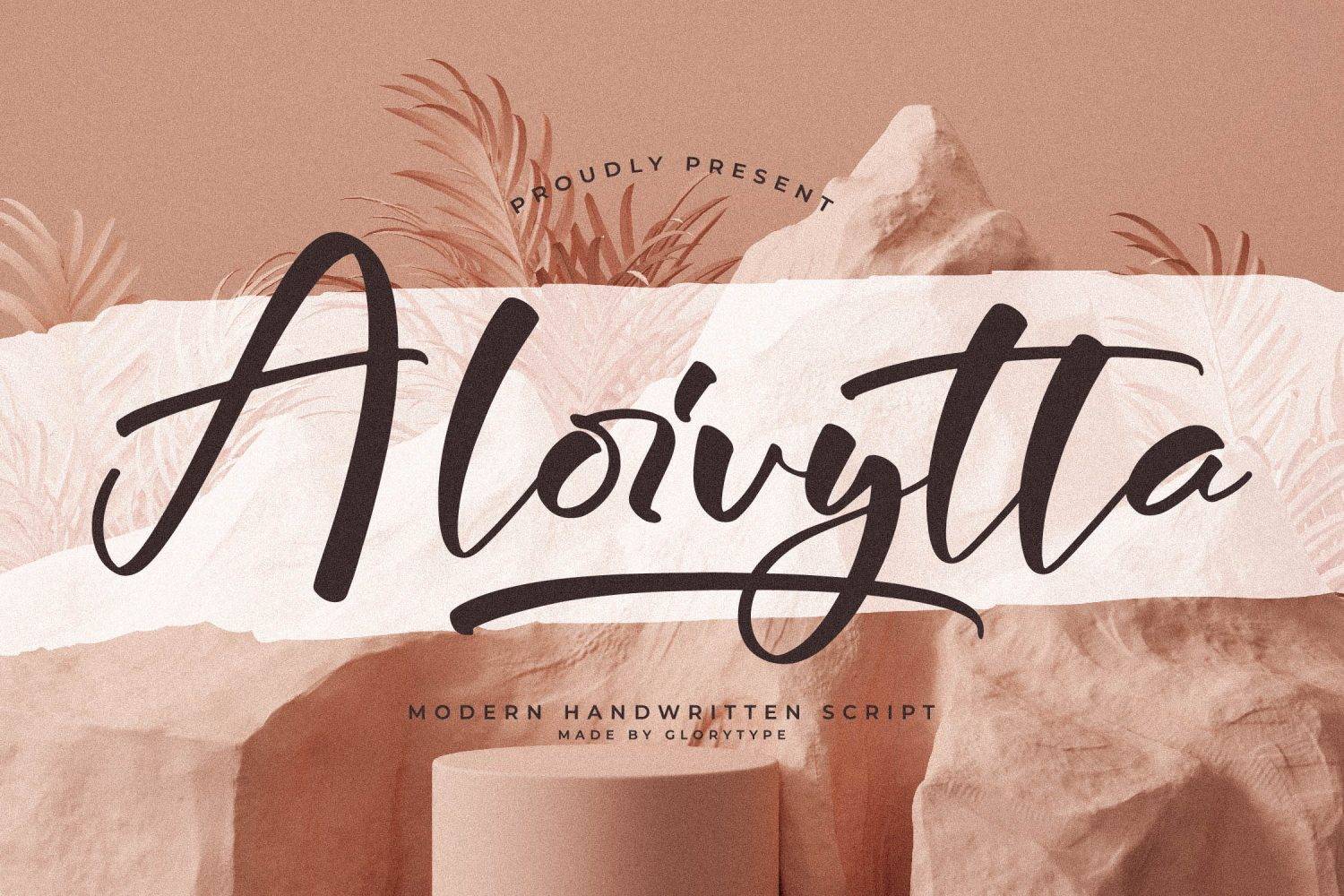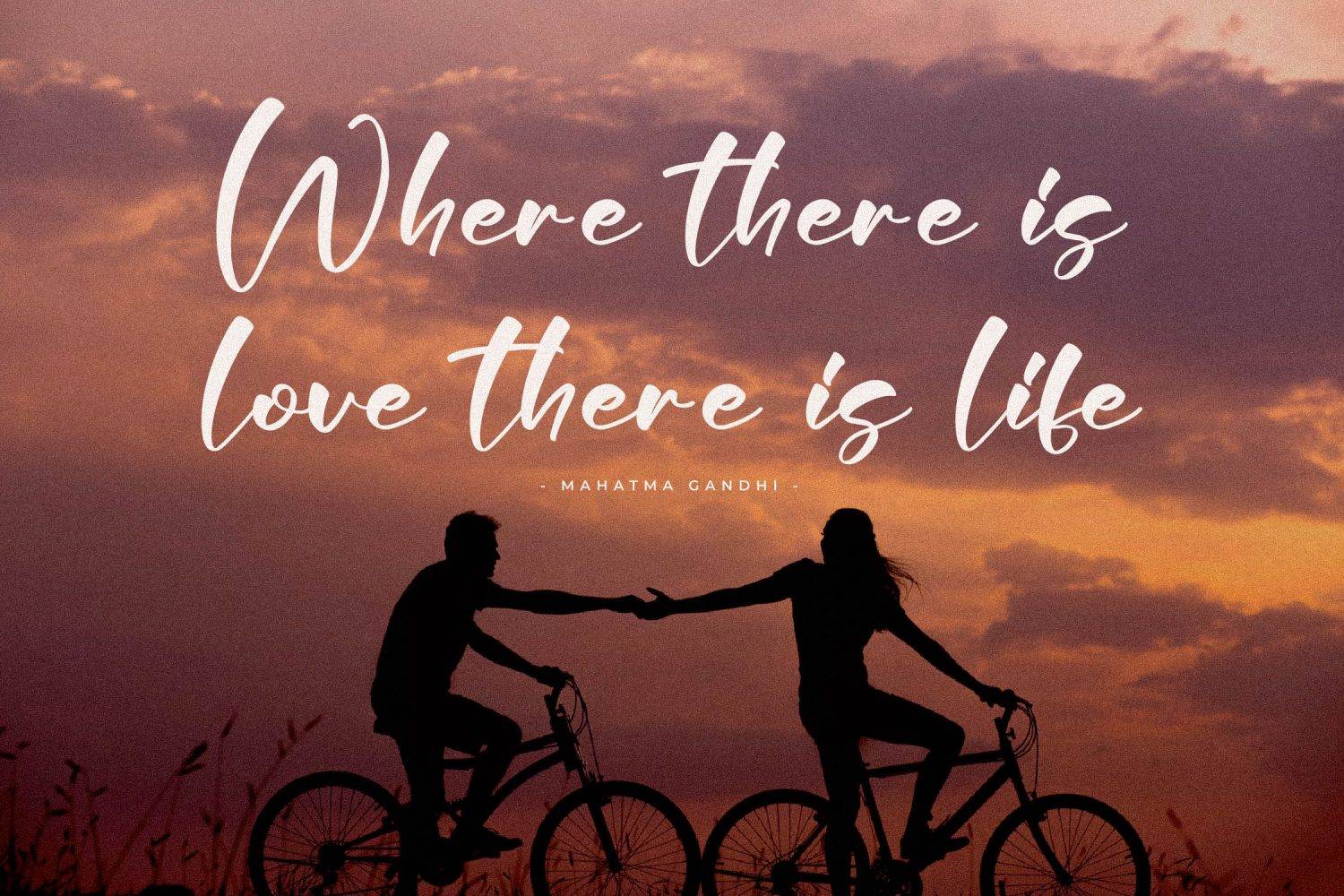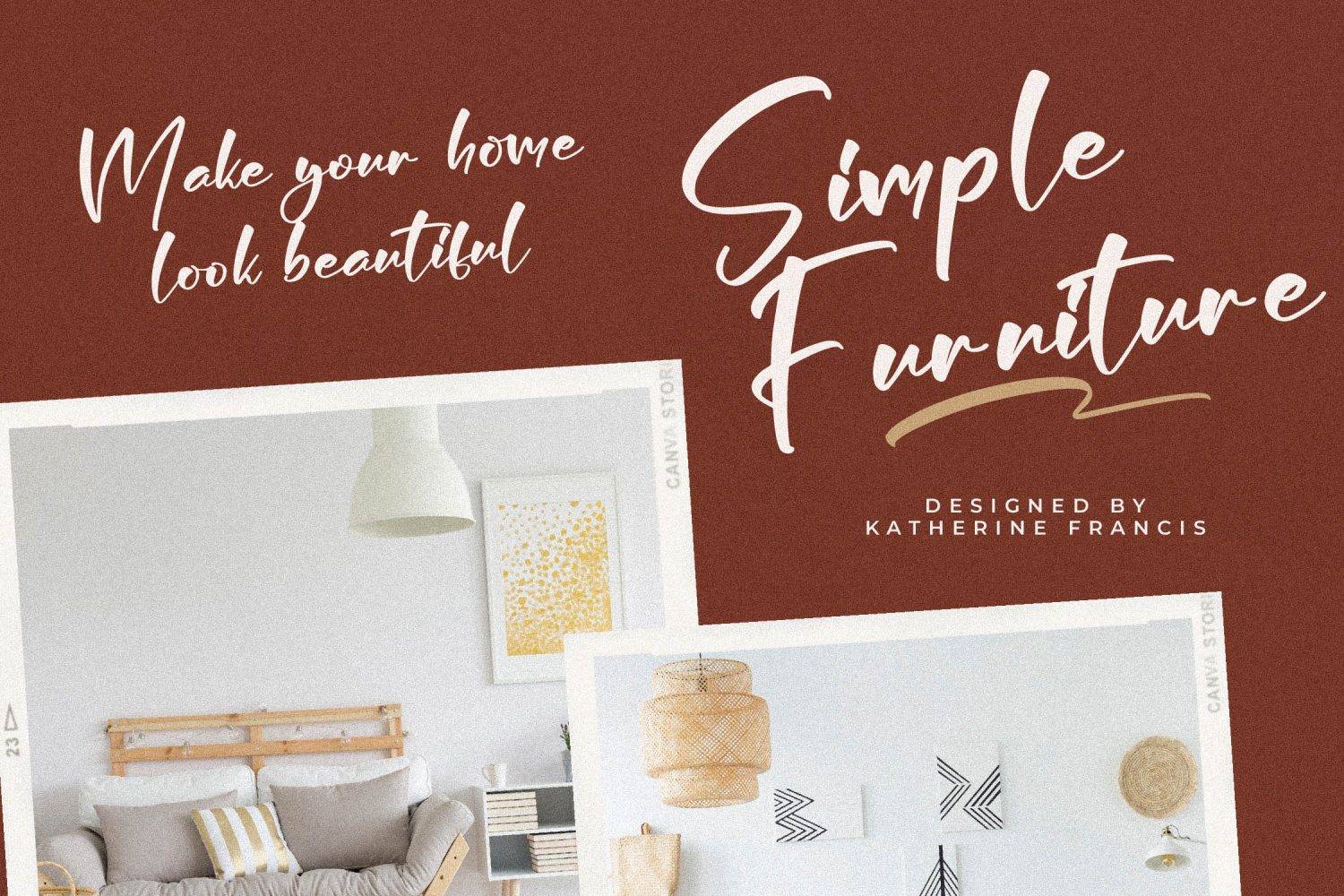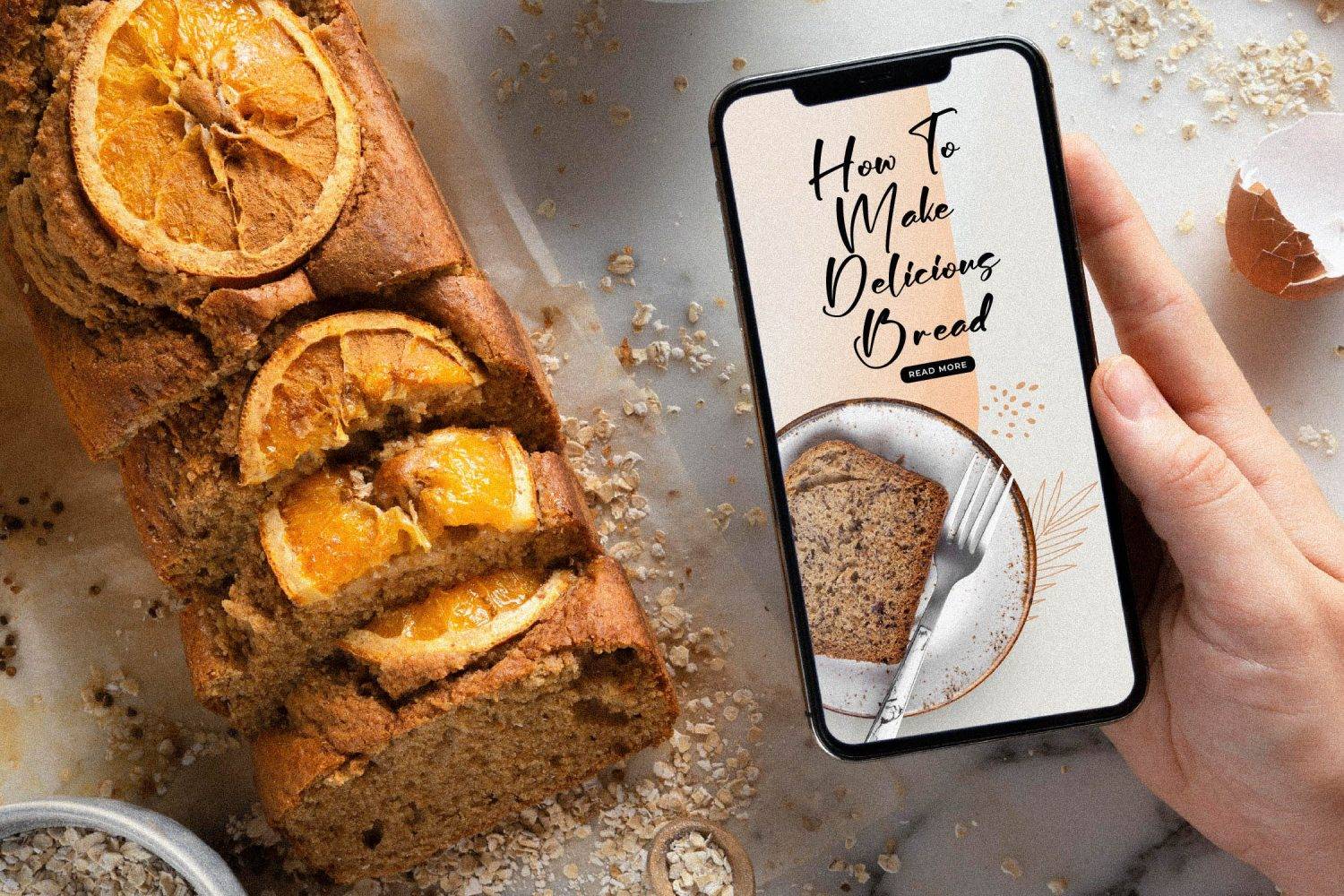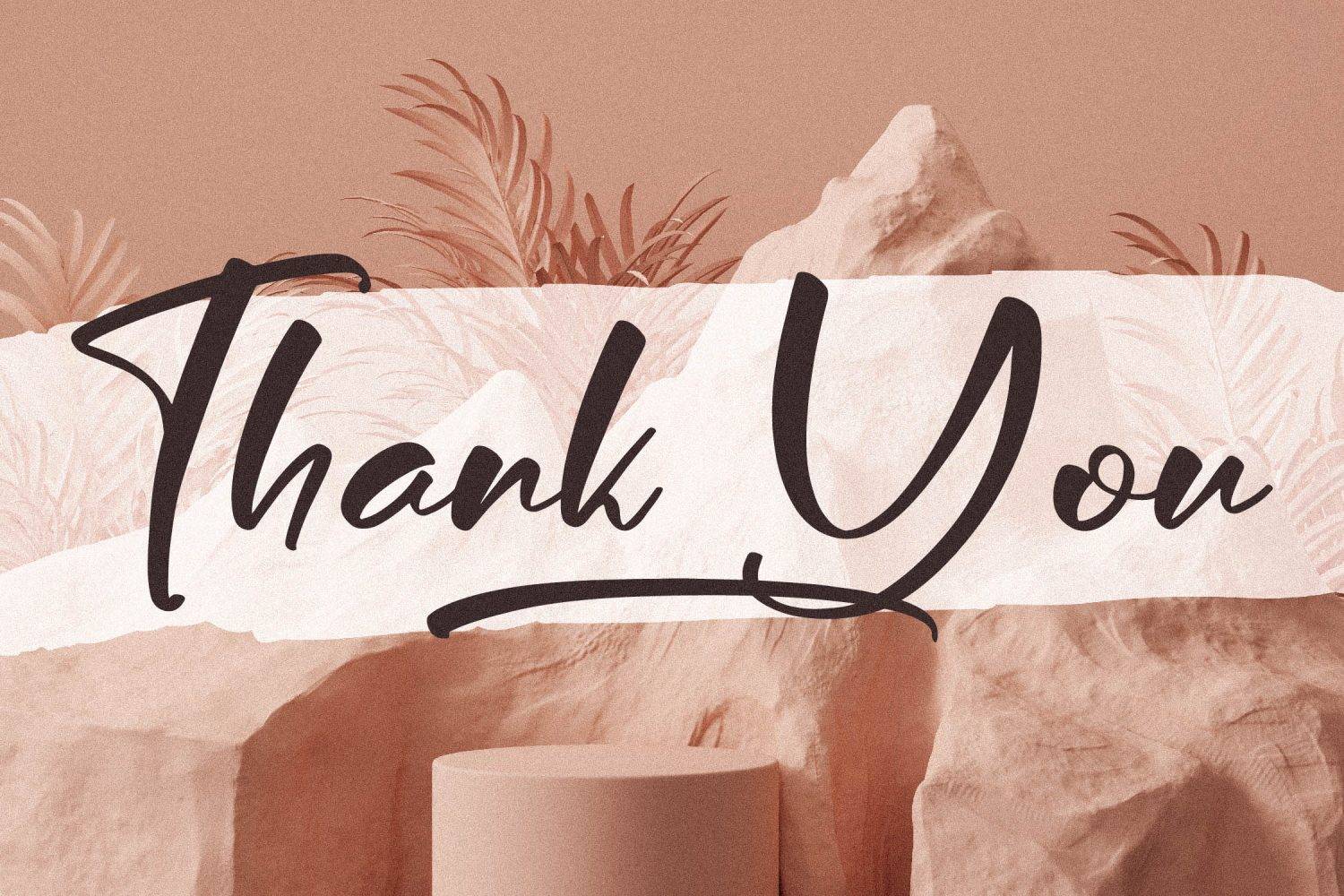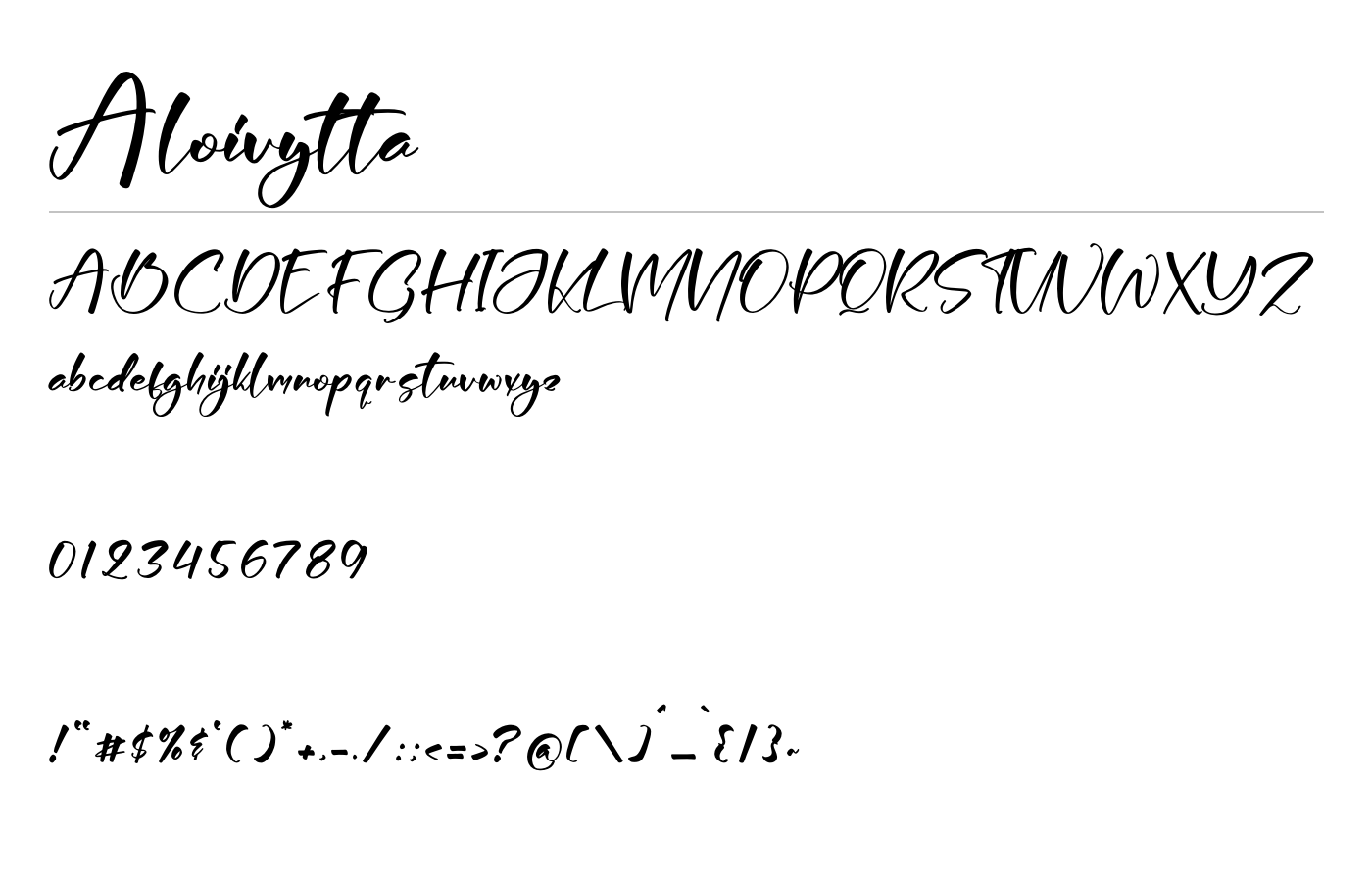
Aloivytta is a stylish script font with a hand-lettered, brushstroke feel that combines elegance with a fresh, casual charm. Its flowing, slightly irregular letterforms and varying stroke widths make it perfect for adding a personal, artistic touch to branding, invitations, and creative projects. This font works beautifully for designs that want to convey warmth and sophistication with a modern, friendly vibe.
Aloivytta Font
About Aloivytta Font